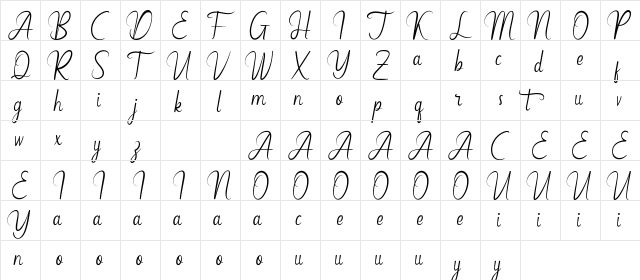
Catcalling Demo Regular
Design Context for Catcalling Demo Typeface
Catcalling Demo is a composed and adaptable typeface that performs quietly and consistently across a wide range of design contexts.